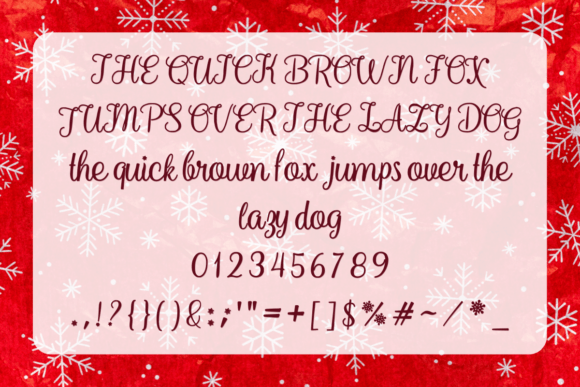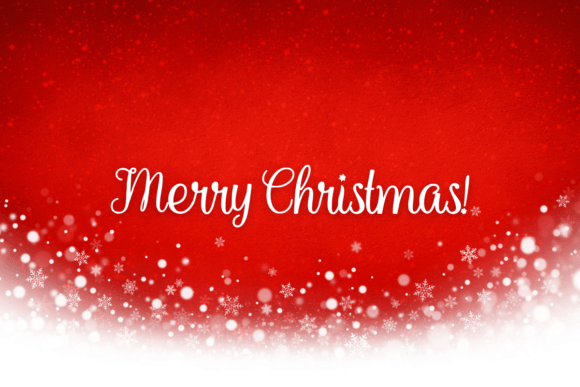
Early Christmas Font
About Early Christmas Font
Early Christmas is a beautiful and elegant script font that is perfect for Christmas. The cute snowflakes give it a more friendly and cozy look.
Add it to your creative ideas and projects during Christmas and make them stand out!